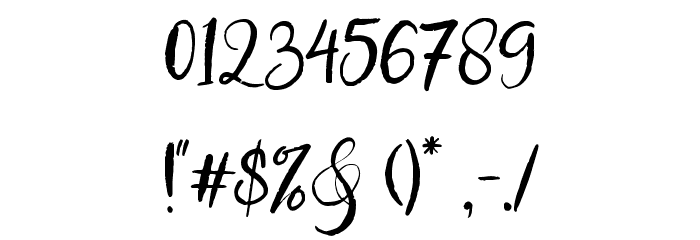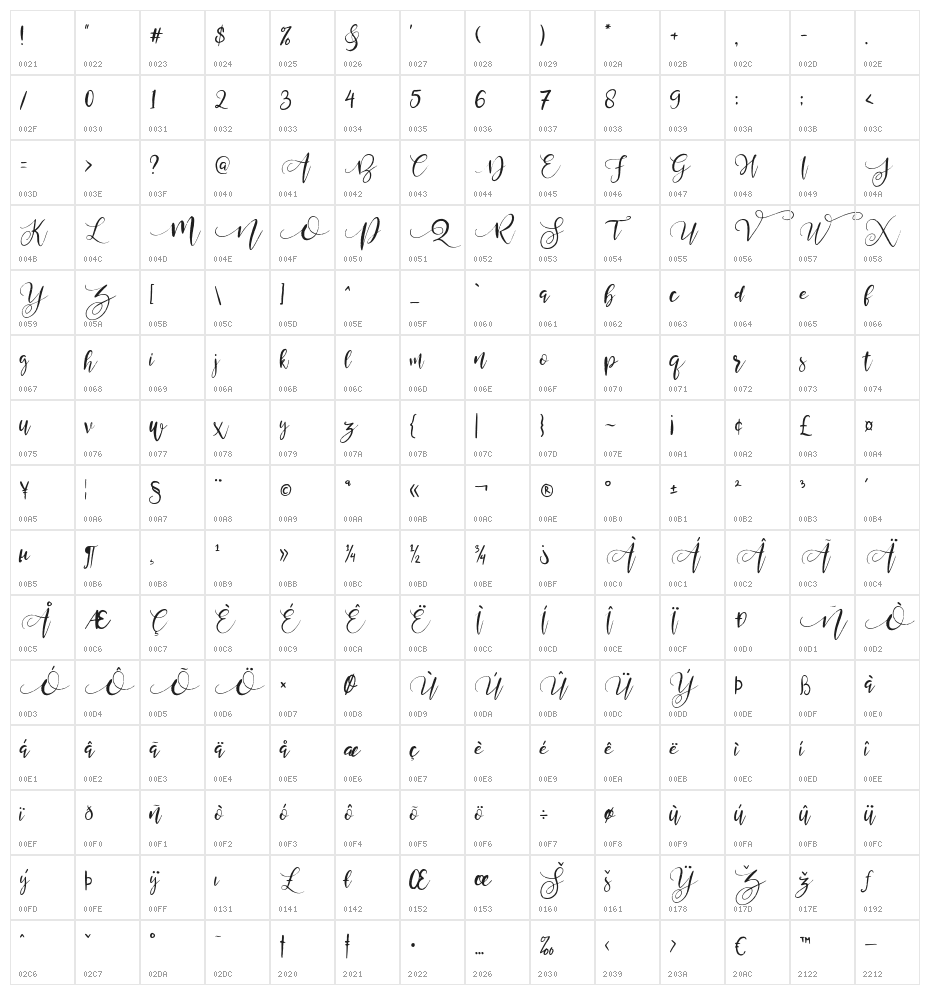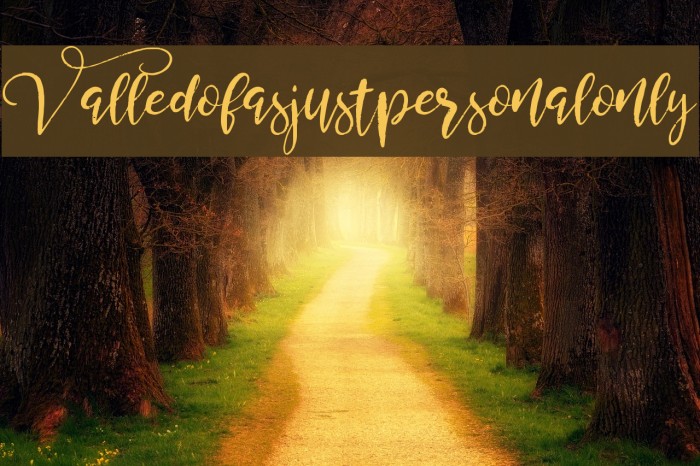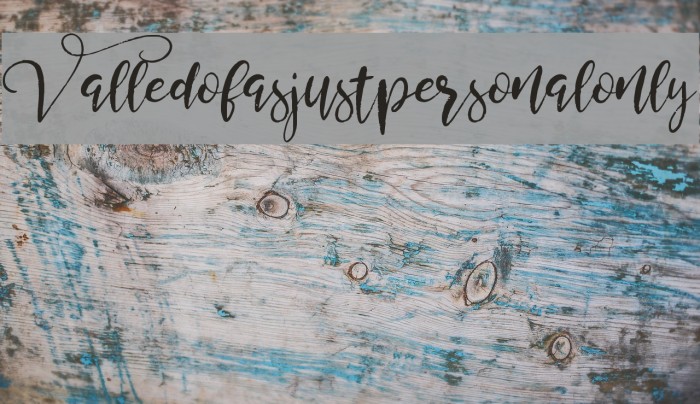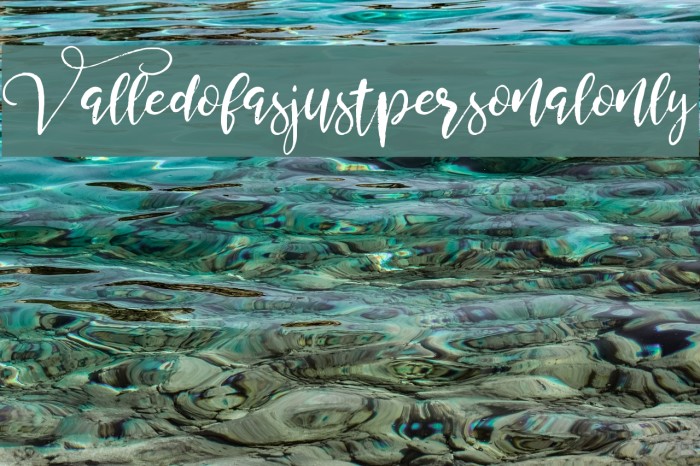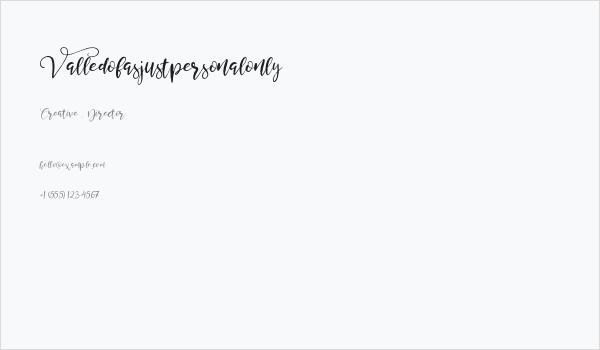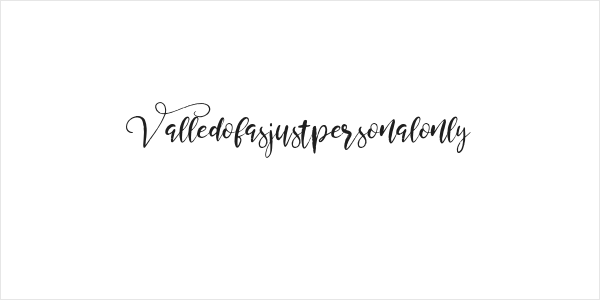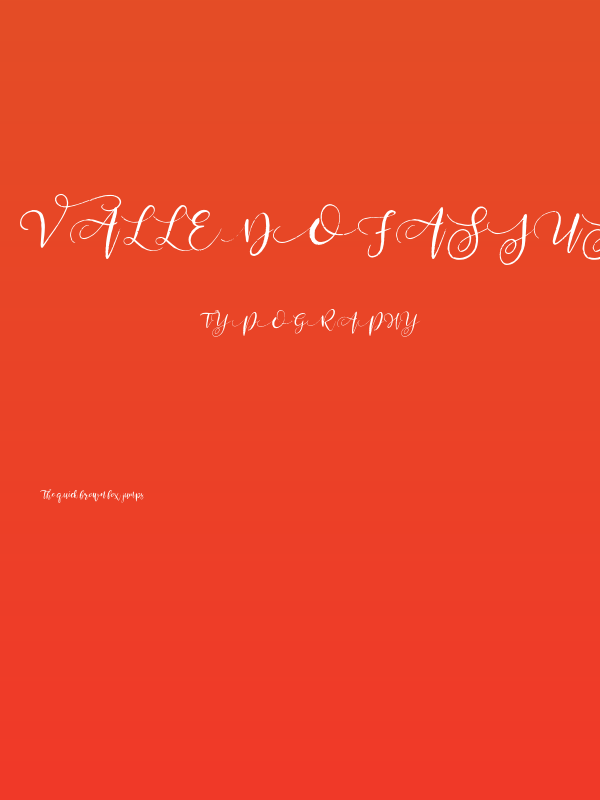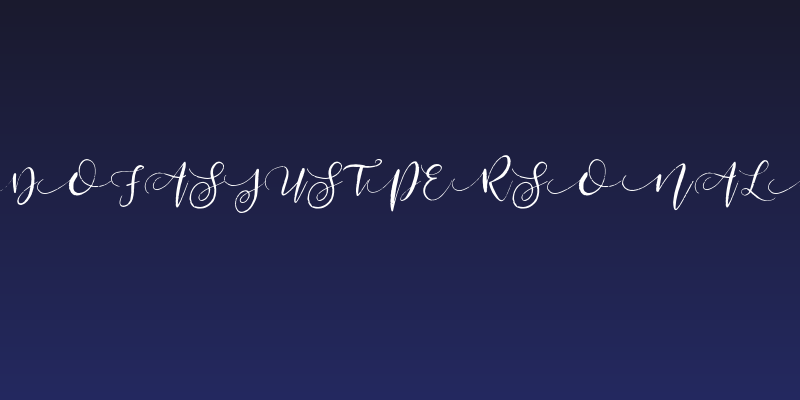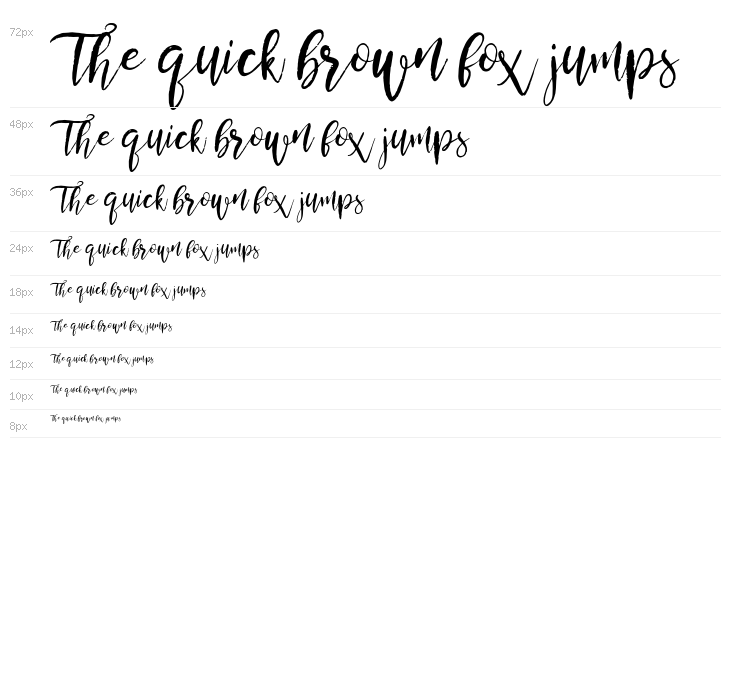
Valledofasjustpersonalonly Font
Valledofasjustpersonalonly Description
This font exudes elegance and sophistication with its flowing, cursive style. The uppercase letters are adorned with intricate swirls and loops, giving them a decorative flair. The lowercase letters maintain a consistent, smooth flow, enhancing readability while retaining an artistic touch. The numerals are bold and slightly more structured, providing a nice contrast to the letters. Special characters are designed with the same attention to detail, ensuring they blend seamlessly with the overall style. This font is perfect for projects that require a touch of elegance and creativity.
| Proposed Projects | Ideal for wedding invitations, greeting cards, branding, and elegant logos. |